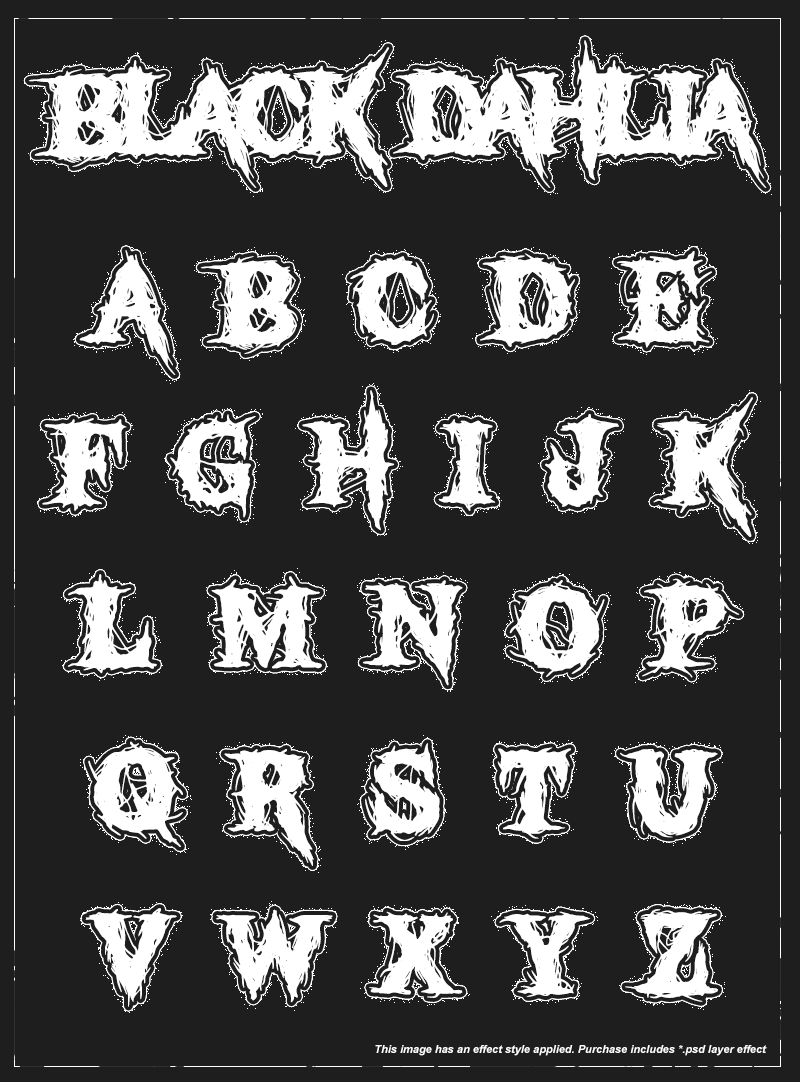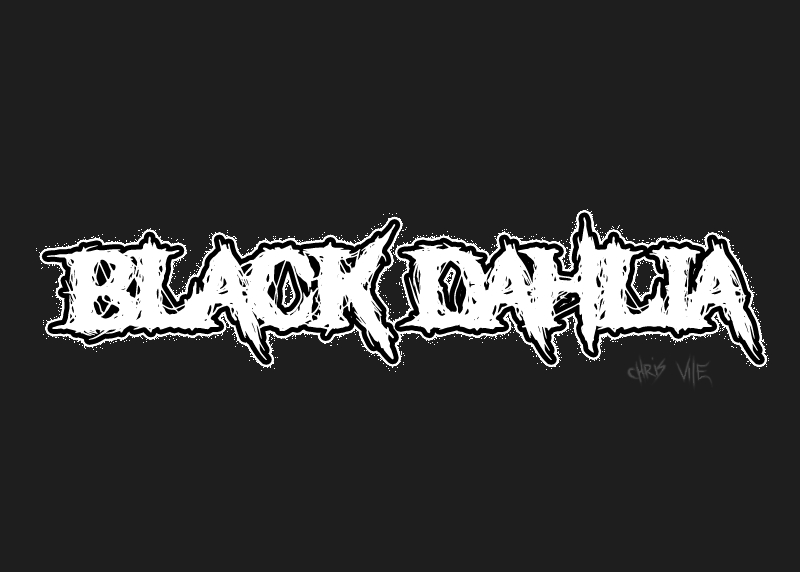
Black Dahlia Font is a horror style font that perfect for any headline, band logo, or title for your next project. It has a deathmetal, grindcore, horror style vibe to it! The image used to showcase this font does have effects added to the typeface using Photoshop, the layer style is included with the purchase of a commercial license.